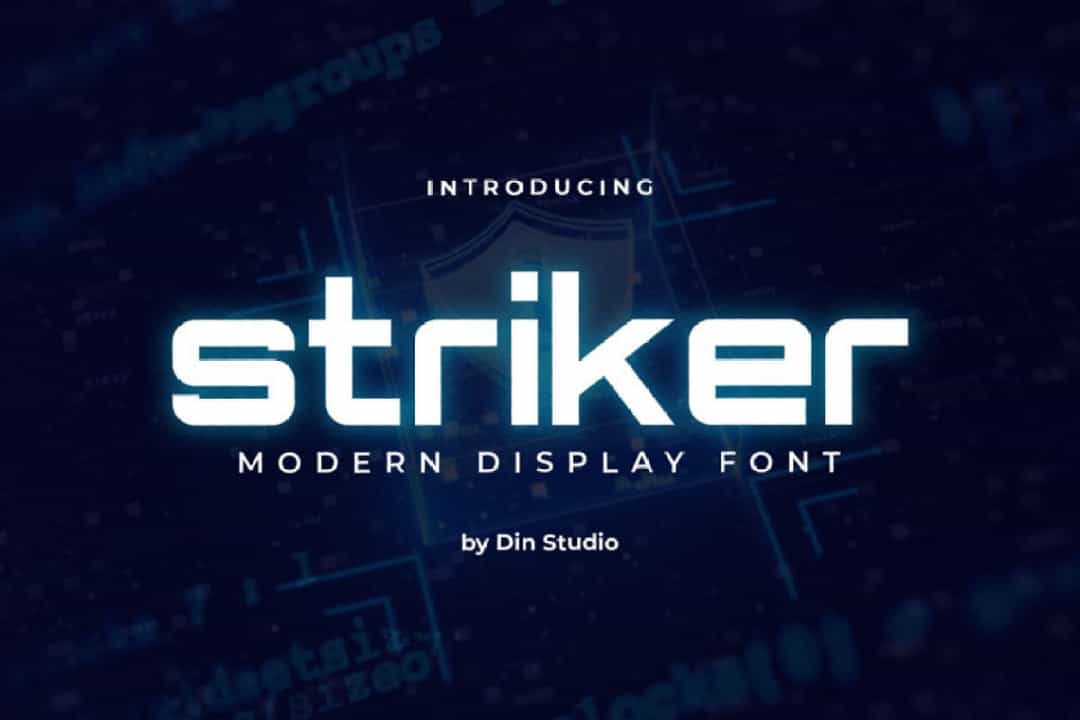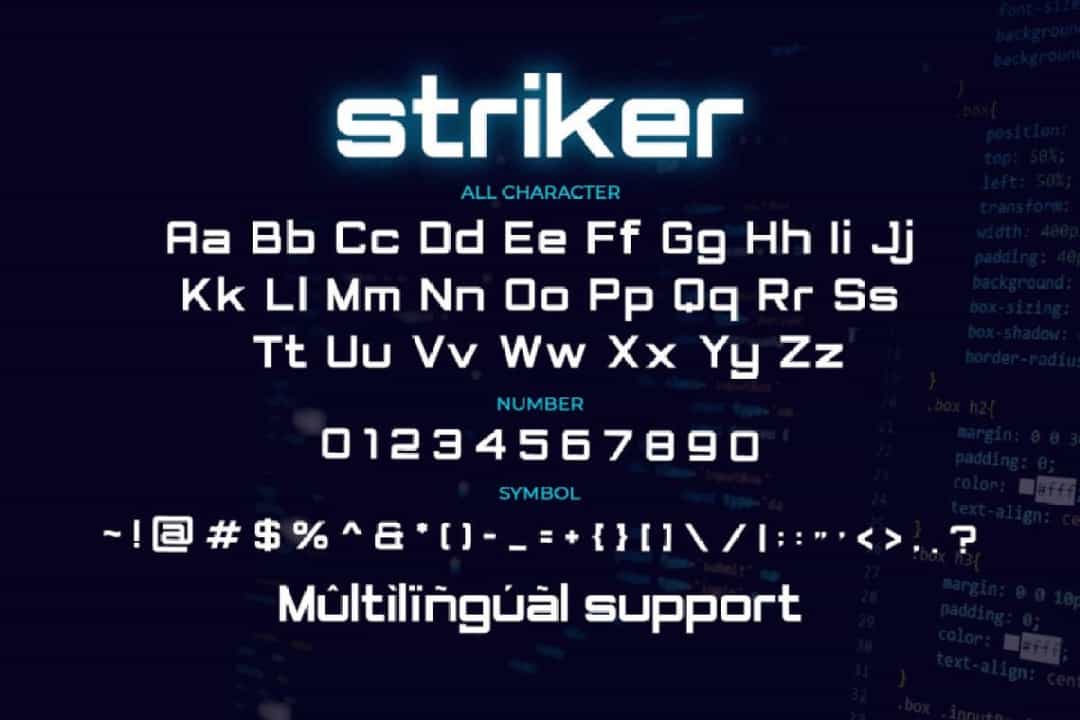
Discover Striker Modern Sans Display Font, part of the Sans Serif Display collection—a versatile and unique font perfect for adding a personal touch to your projects. Download it for free and enjoy crafting designs with style, from invitations to social media posts. This font is available exclusively for personal use, giving you the freedom to create without limits. Unlock your creativity with Striker Modern Sans Display Font today!
Striker is a non-display font that is suitable for use in professional projects identifying. Ideal for logos and sayings; each of the letters looks very beautiful. Striker comes with a vast array of both upper and lower case alphabets, multicultural symbols and punctuation signs, and numerals to help on the output.